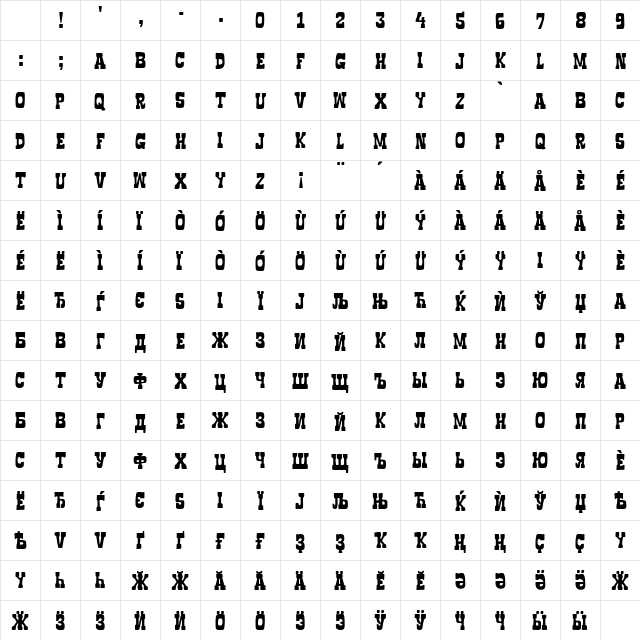
Complete Boncegro FF 4F Regular glyph index. Displaying only characters natively supported by Boncegro FF 4F Regular font.
Boncegro FF 4F is a composed and adaptable typeface that performs quietly and consistently across a wide range of design contexts.
Who designed the Boncegro FF 4F Regular font?